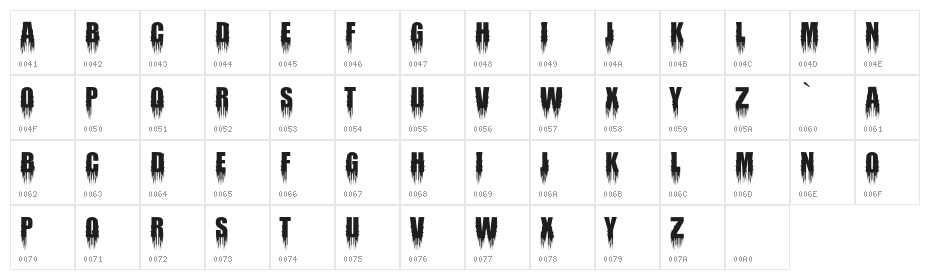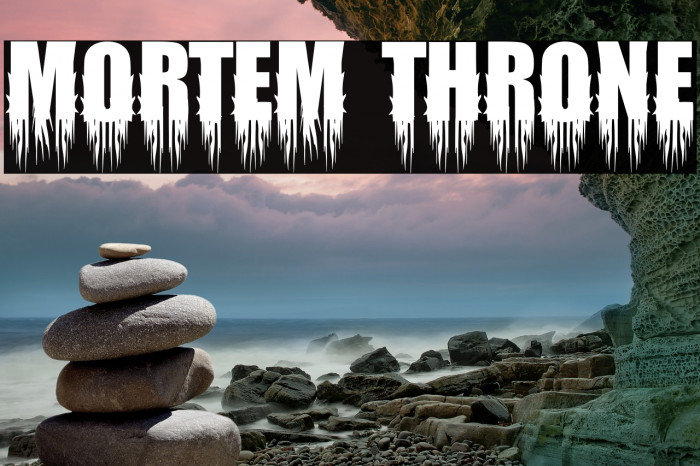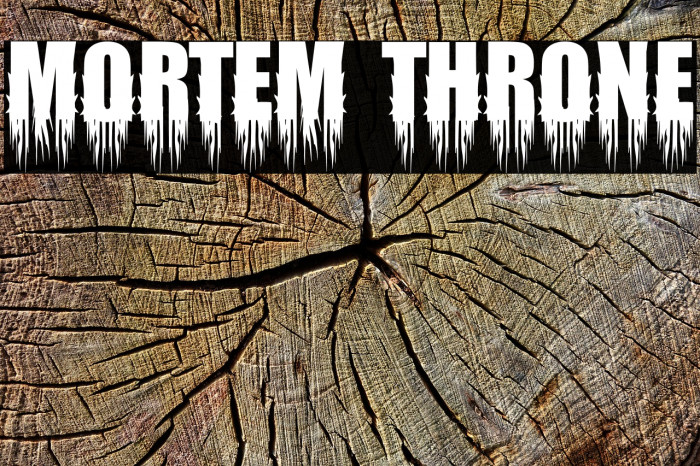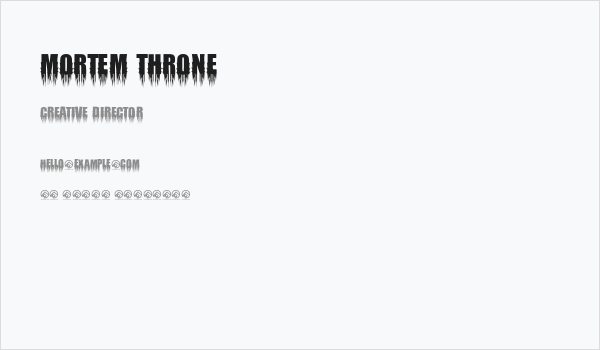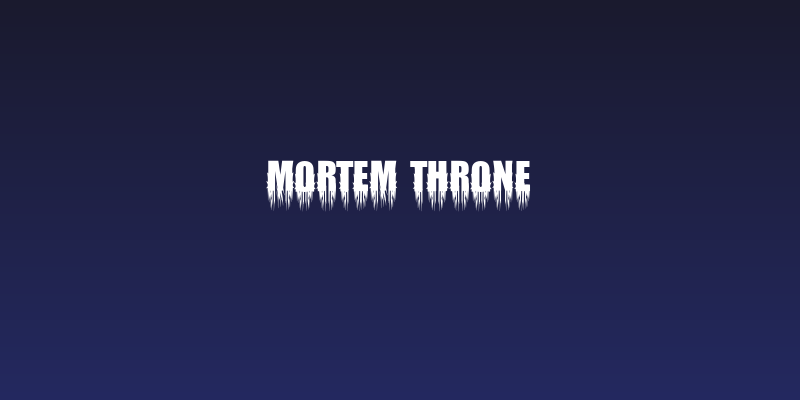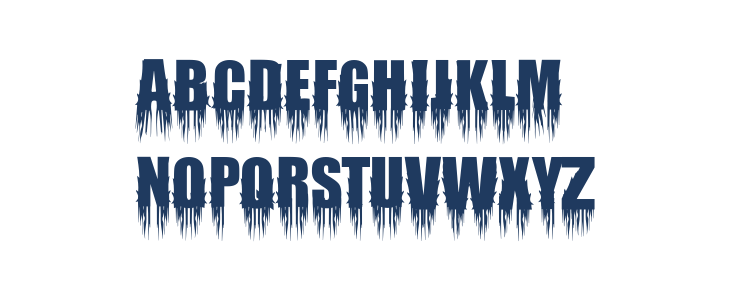
Mortem Throne Font
Mortem Throne Description
This font features a bold and dramatic design with a distinct horror-inspired aesthetic. The characters are uppercase and exhibit a dripping effect that resembles melting or bleeding, creating a sense of decay and eeriness. The strokes are thick and consistent, contributing to a strong visual impact. The overall appearance is highly decorative, making it suitable for themes related to horror, Halloween, or anything requiring a spooky or gothic vibe. The font's unique style makes it stand out, but it may not be suitable for body text due to its intricate details.
| Proposed Projects | Perfect for Halloween posters, horror movie titles, haunted house flyers, and gothic-themed event invitations. |